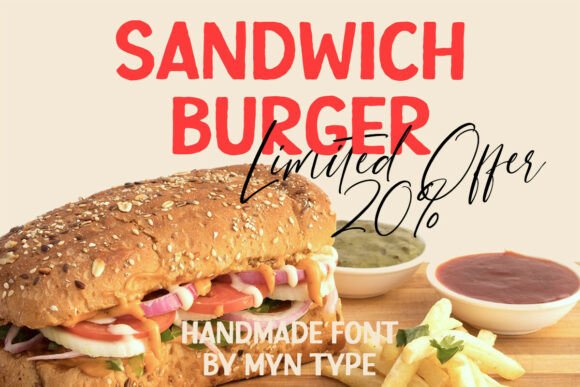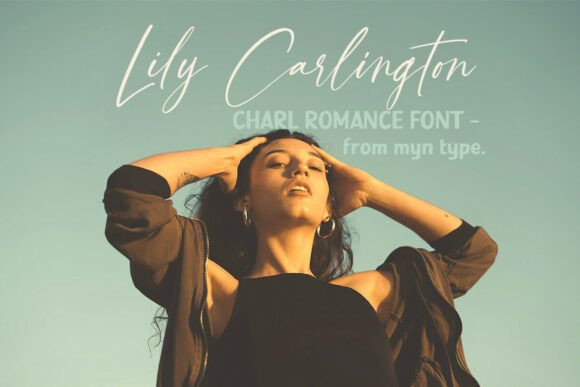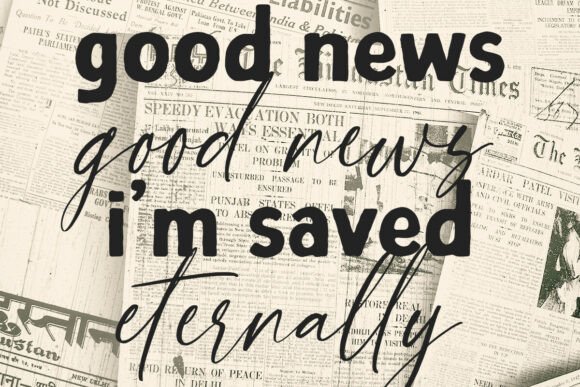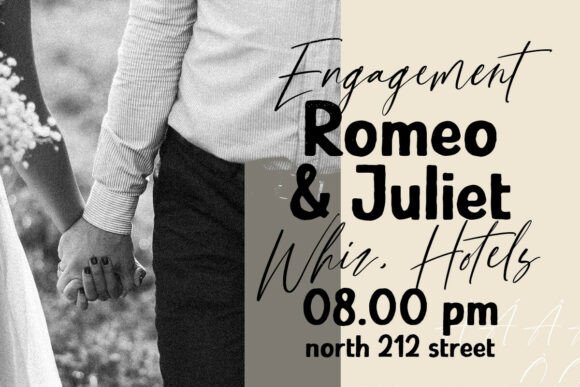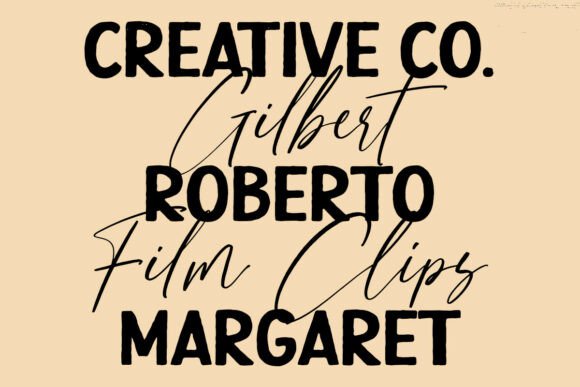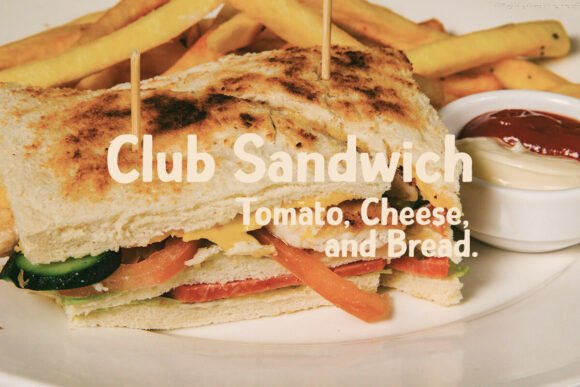
Discovering the Perfect Blend of Modern and Handcrafted
Have you ever found yourself staring at a blank canvas, searching for the perfect font to bring your design to life? You know the moment when everything clicks – the colors, the textures, the typography – and suddenly, your creative vision becomes a reality? For designers seeking a unique and authentic look, the Charl Romance Duo Font is about to become your new best friend.
This hand-drawn, textured font combines the clean lines of a sans serif with the organic charm of a handwritten script. The result is a natural, handcrafted look that feels personal and unique. Whether you’re working on branding, product design, or wedding invitations, the Charl Romance Duo Font offers versatility and a touch of contemporary elegance.
As a valuable addition to any designer’s toolkit, the Charl Romance Duo Font is perfect for those who crave a handcrafted look without sacrificing modern style. With its authentic brush strokes and organic details, this font is sure to elevate your designs and leave a lasting impression.
Key Features of Charl Romance Duo Font
- Font Styles: Charl Romance Duo Font comes in two distinct styles – a romantic, elegant script and a modern sans-serif companion font.
- Unique Characteristics: The script font features elegant swashes, flourishes, and ligatures, while the sans-serif font boasts clean lines, geometric shapes, and precise typography.
- Character Count: Each font style includes a comprehensive character set, including uppercase and lowercase letters, numbers, punctuation, and special characters.
Designer Review: Charl Romance Duo Font
Overall, I’m quite impressed with the Charl Romance Duo Font. ✨ It’s a beautiful, elegant font that’s perfect for adding a touch of romance and sophistication to your designs. The font’s delicate lines and subtle curves create a lovely, whimsical feel that’s sure to captivate your audience.
Here are some of the things that work well:
- ✨ The font’s versatility – it works well for both body text and headings.
- ✨ The elegant, cursive feel that’s perfect for romantic or vintage-themed designs.
- ✨ The font’s high legibility, making it easy to read even at smaller sizes.
However, there are a few limitations:
- ⚠️ The font may not be suitable for bold, modern designs, as it can feel a bit too delicate.
- ⚠️ The font may require some extra styling to make it stand out in busy or cluttered designs.
Overall, I think the Charl Romance Duo Font is a beautiful addition to any designer’s toolkit. While it may have some limitations, its elegance and versatility make it a great choice for a wide range of designs.
Getting the Most Out of Charl Romance Duo Font
To get the most out of Charl Romance Duo Font, use it for romantic and elegant designs. Pair it with soft colors and gentle graphics for a whimsical feel. Use it for wedding invitations, greeting cards, and other special occasion designs.
Charl Romance Duo Font is perfect for:
– Wedding invitations and stationery
– Greeting cards and gift tags
– Romantic book covers and magazine designs
– Elegant website headers and footers